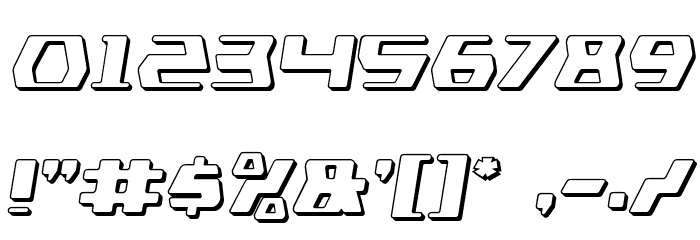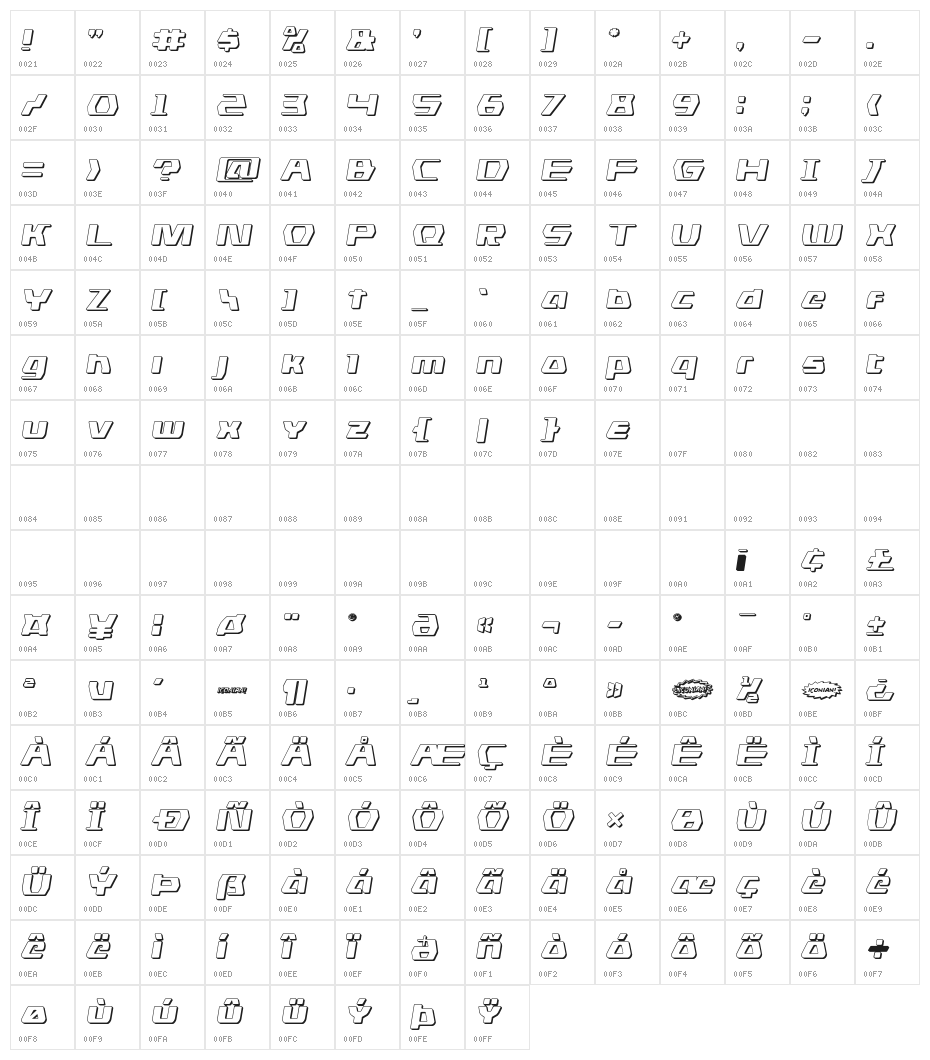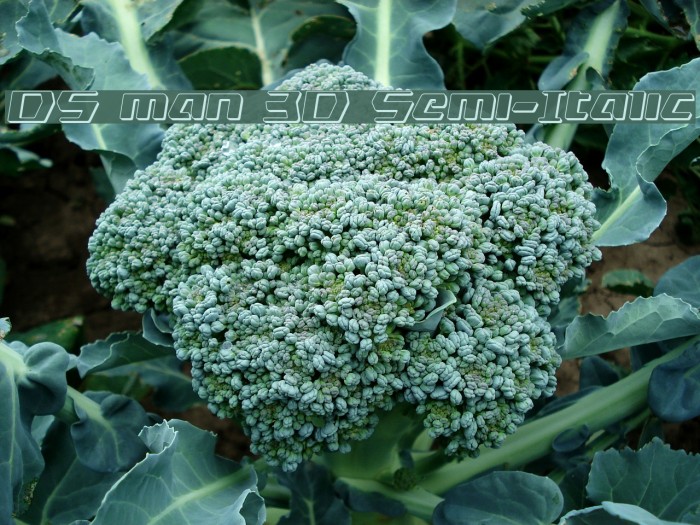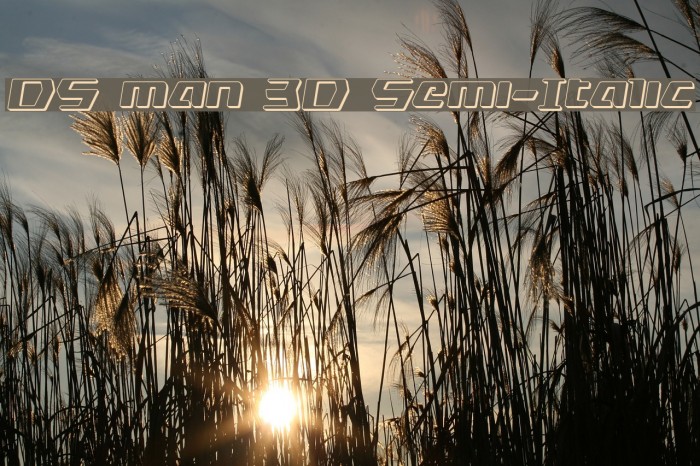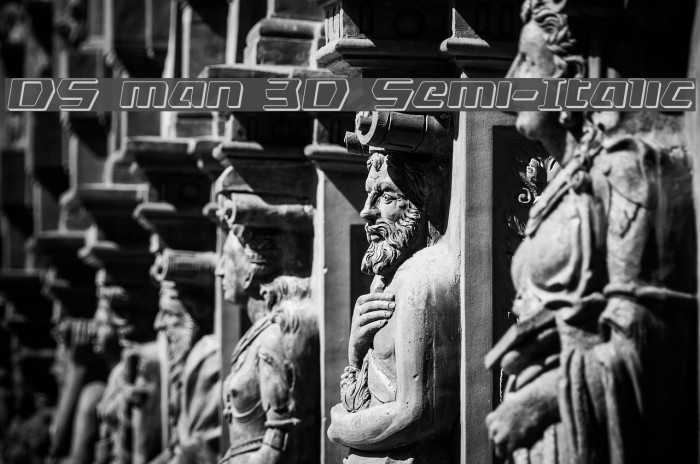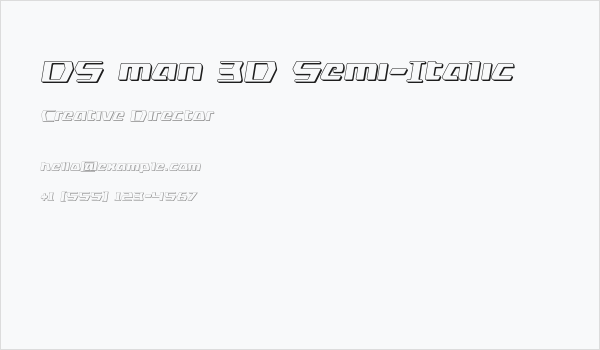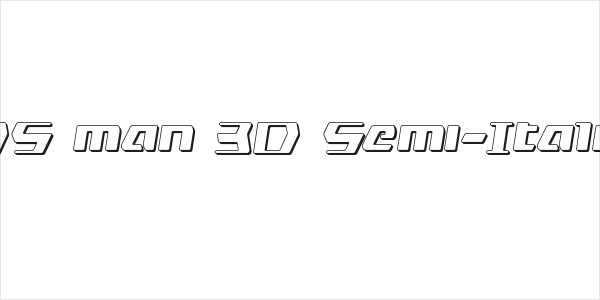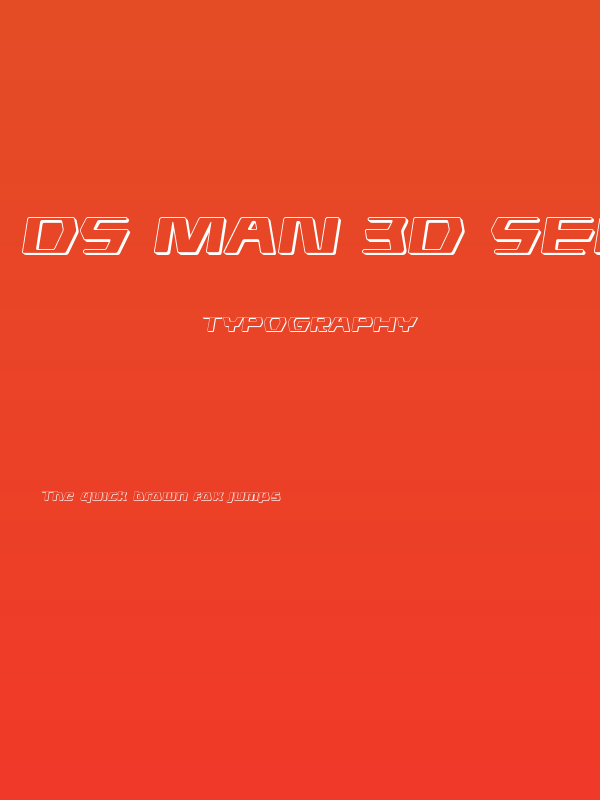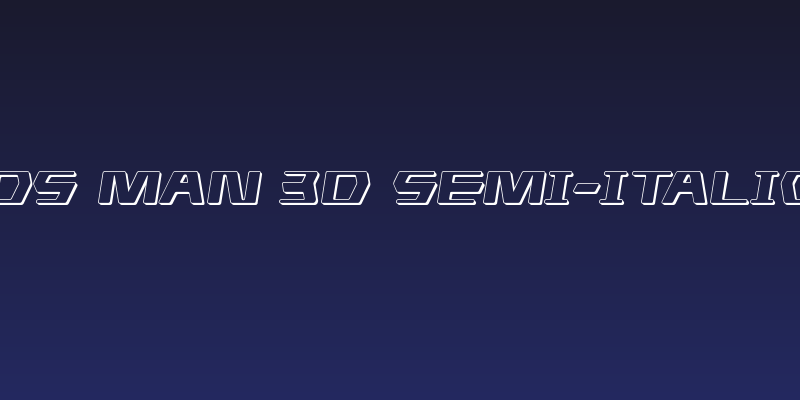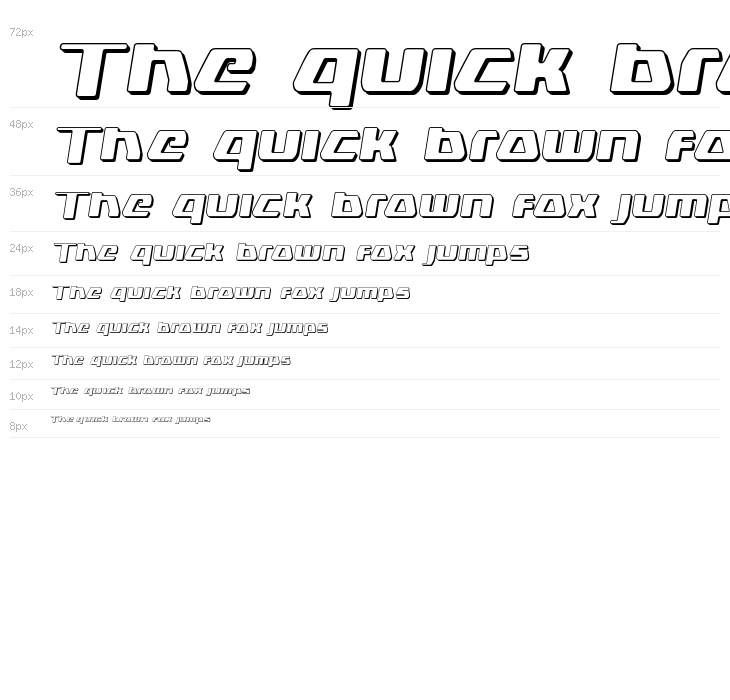
DS man 3D Semi-Italic Font
DS man 3D Semi-Italic Description
This font features a bold, three-dimensional design with semi-italicized characters. The letters have a futuristic and dynamic appearance, characterized by their angular shapes and distinct outlines. The uppercase and lowercase letters maintain a consistent style, with a slight slant that adds a sense of motion. The numbers and special characters follow the same design principles, ensuring uniformity across all elements. This font's unique style makes it stand out, offering a modern twist on traditional typography.
| Proposed Projects | Ideal for sci-fi themed projects, video game titles, tech branding, and modern posters. |